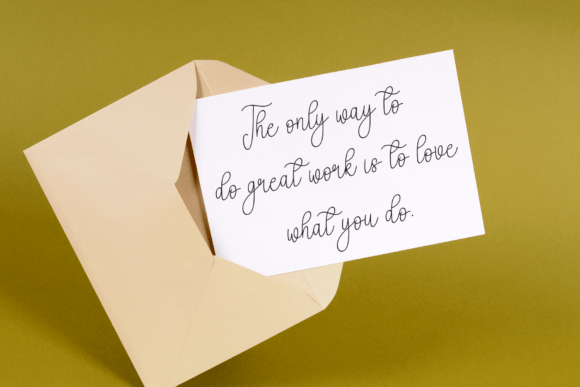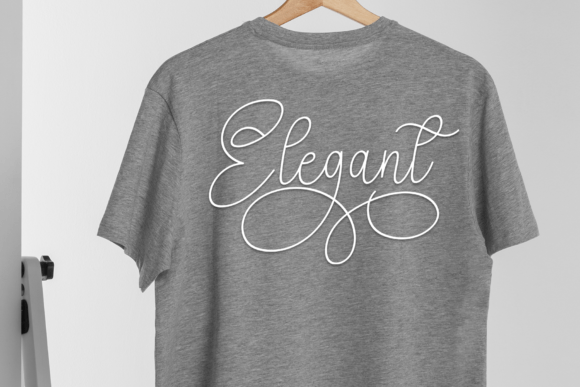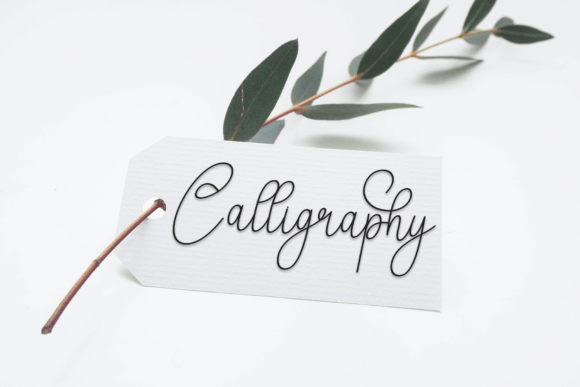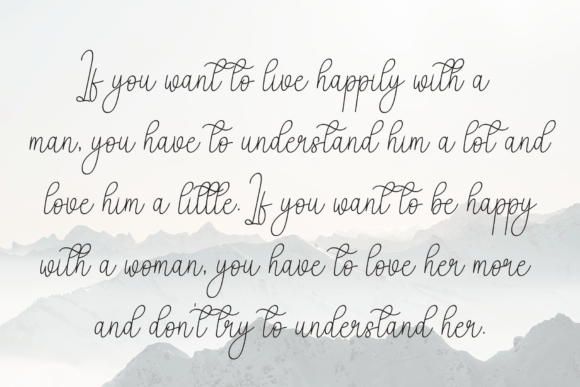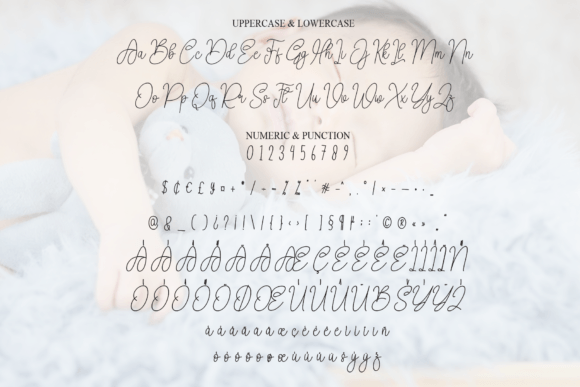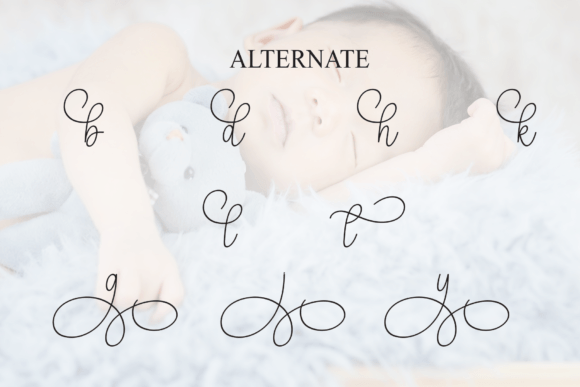
Have you ever been brainstorming a creative project, and suddenly a spark of inspiration hits you? Maybe it’s the perfect phrase for a birthday card, or the ideal font to use for a baby shower invitation. For many designers, this moment is what makes all the hard work worth it.
One font that can help bring your ideas to life is the charming Babytime Font. With its smooth, flowing lines, it’s perfect for adding a personal touch to invitations, greeting cards, and other creative projects. This beautiful handwritten font is not just a pretty face – it’s also incredibly versatile and easy to use.
Babytime Font Key Features
- Font Family: Babytime Font is a unique, hand-drawn font designed specifically for children’s products and nursery decor.
- Character Set: Babytime Font includes a comprehensive set of uppercase and lowercase letters, numerals, punctuation marks, and special characters, making it suitable for various text-based applications.
- Unique Characteristics: The font features soft, rounded edges and a playful, whimsical feel, making it perfect for creating a warm and inviting atmosphere in nursery decor and children’s products.
Babytime Font Review
Overall, I found the Babytime Font to be a delightful and charming addition to any project. Here’s a breakdown of what works well and what doesn’t.
- Playful and whimsical feel: The Babytime Font is perfect for projects that require a lighthearted and playful tone.
- Unique and cursive script: The font’s cursive script is a standout feature, adding a touch of elegance and sophistication to any design.
- High legibility: The font is highly legible, even at smaller font sizes, making it suitable for a wide range of applications.
- Limited font weights and styles: The font comes in a limited range of font weights and styles, which may not be suitable for more complex or nuanced designs.
- May not be suitable for formal projects: The Babytime Font’s playful and whimsical feel may not be suitable for more formal or professional projects.
The Babytime Font is a charming and delightful font that’s perfect for projects that require a lighthearted and playful tone. While it has some limitations, it’s a great choice for designers looking to add a touch of whimsy to their designs.
Getting the Most Out of Babytime Font
To get the most out of Babytime Font, consider the following tips:
– Use it for baby-related designs, such as nursery decor, baby shower invitations, and children’s books.
– Experiment with different font sizes and colors to create a playful and whimsical effect.
– Pair Babytime Font with other fonts to create a unique and eye-catching design.
Some common use cases for Babytime Font include:
– Baby shower invitations and decor
– Nursery wall art and decor
– Children’s books and educational materials
– Baby-related social media graphics and advertising
Alternatives to Babytime Font
Great Vibes is a handwritten font that is perfect for creating a playful and whimsical atmosphere. It is ideal for use in children’s books, nursery decor, and other designs that require a touch of innocence and charm. Compared to Babytime Font, Great Vibes has a more modern and sleek feel, making it suitable for a wider range of design applications.
Lobster is a cursive font that is great for adding a touch of elegance and sophistication to designs. It is ideal for use in invitations, greeting cards, and other designs that require a sense of refinement and luxury. Compared to Babytime Font, Lobster has a more dramatic and attention-grabbing feel, making it suitable for designs that require a bold statement.